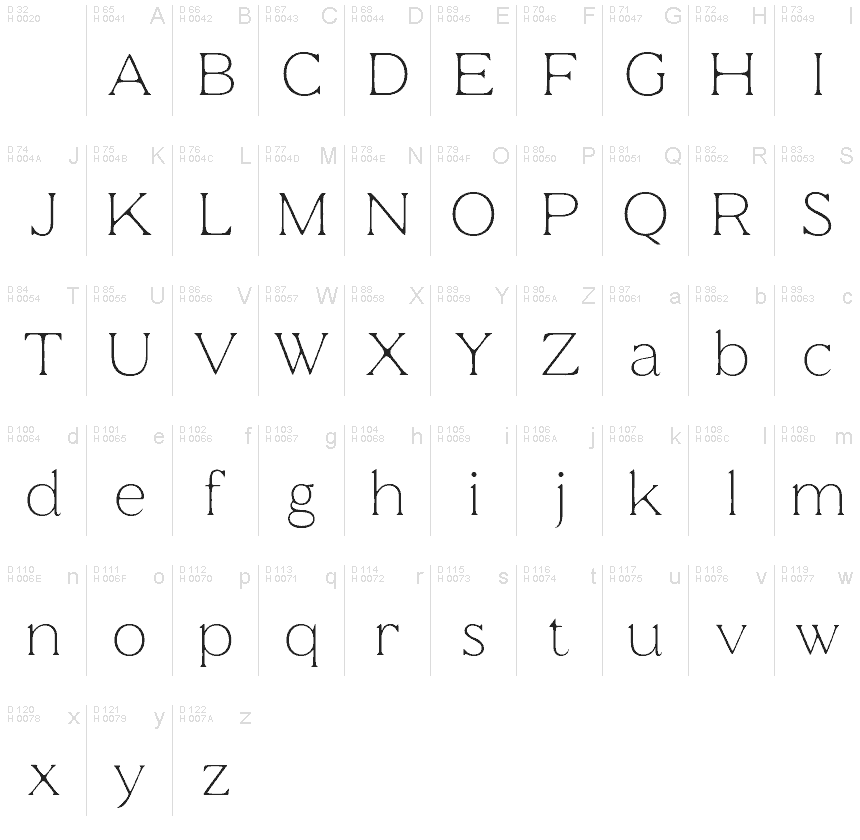
CSWilonaDrawn-Regular Demo
CS Wilona font blends elegance with a contemporary serif style, featuring an understated refinement and sophisticated aesthetic. It owes much of its professional tone to slender serifs and thin lines that cleanly outline every drawn character. Every piece of this font is sleek enough for your most serious designs.
Enjoy CS Wilona in headlines, titles, webpage copy, product packaging labels, business cards, posters, magazine spreads, publishing projects like books or novel covers.